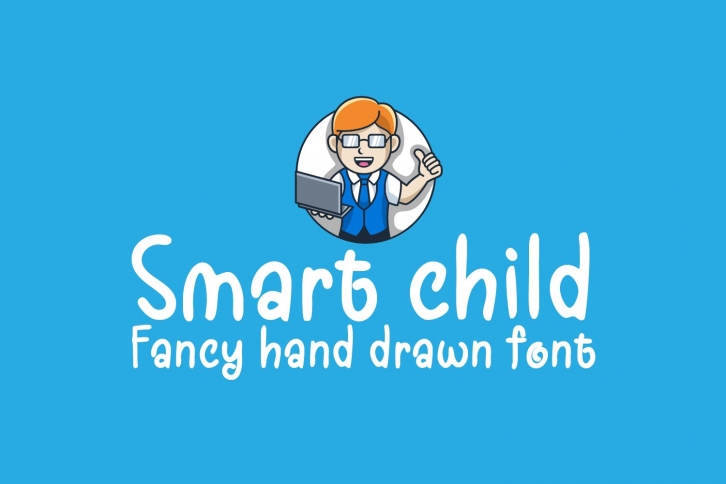
Smart Kids is a beautiful font that was designed by Cititype. It's a great choice for designers and creatives who need such a font. It was released on September 18, 2020 and the file size is 18.68 MB. Smart Kids may give a more youthful, expressive and casual look to your project. It is a very beautiful, refined, elegant, and high-quality font.